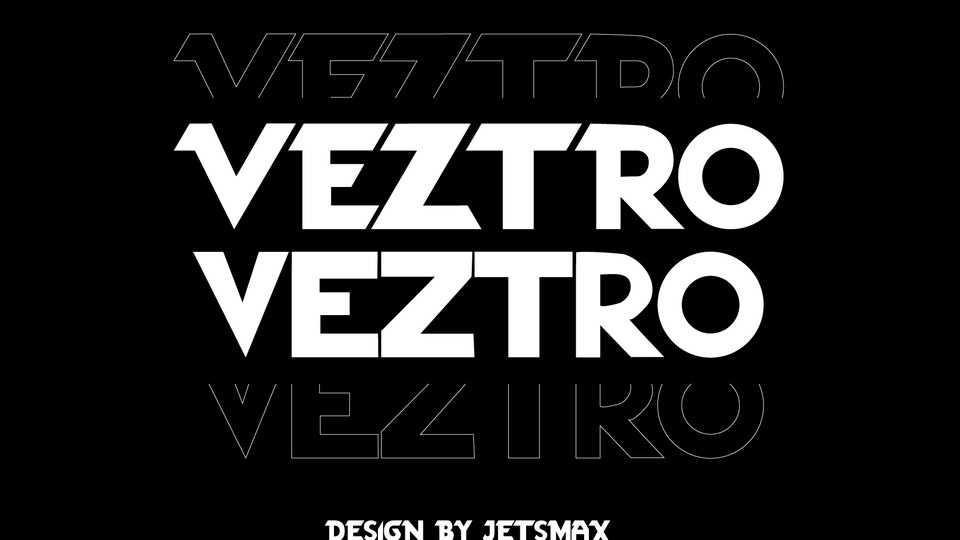
Download Veztro font, a modern display typeface with a dash of futuristic touch around the edges. If you wished for your projects to look more upbeat, then Veztro is your answer!
Designer: Jetsmax Studio